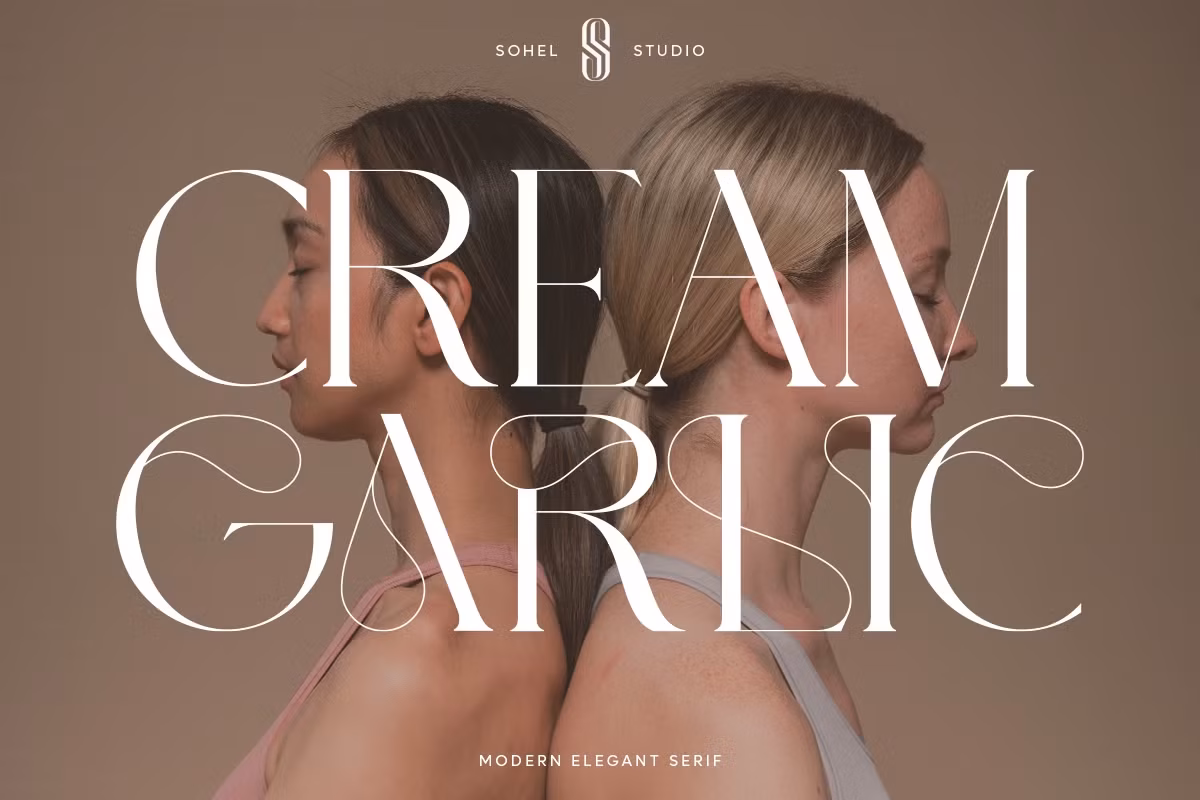
Cream Garlic - Beauty Branding Serif Font Free Download is a luxurious and elegant serif typeface designed specifically for beauty, fashion, and lifestyle branding. With its refined curves, graceful serifs, and sophisticated letterforms, this font is perfect for creating high-end brand identities, logos, product packaging, and promotional materials.
The Cream Garlic font combines timeless elegance with modern sophistication, making it ideal for beauty brands, cosmetics, high-fashion labels, and luxury services. Its delicate, refined aesthetic exudes class and professionalism, ensuring your designs stand out with style.
Add a touch of elegance and refinement to your branding with Cream Garlic!